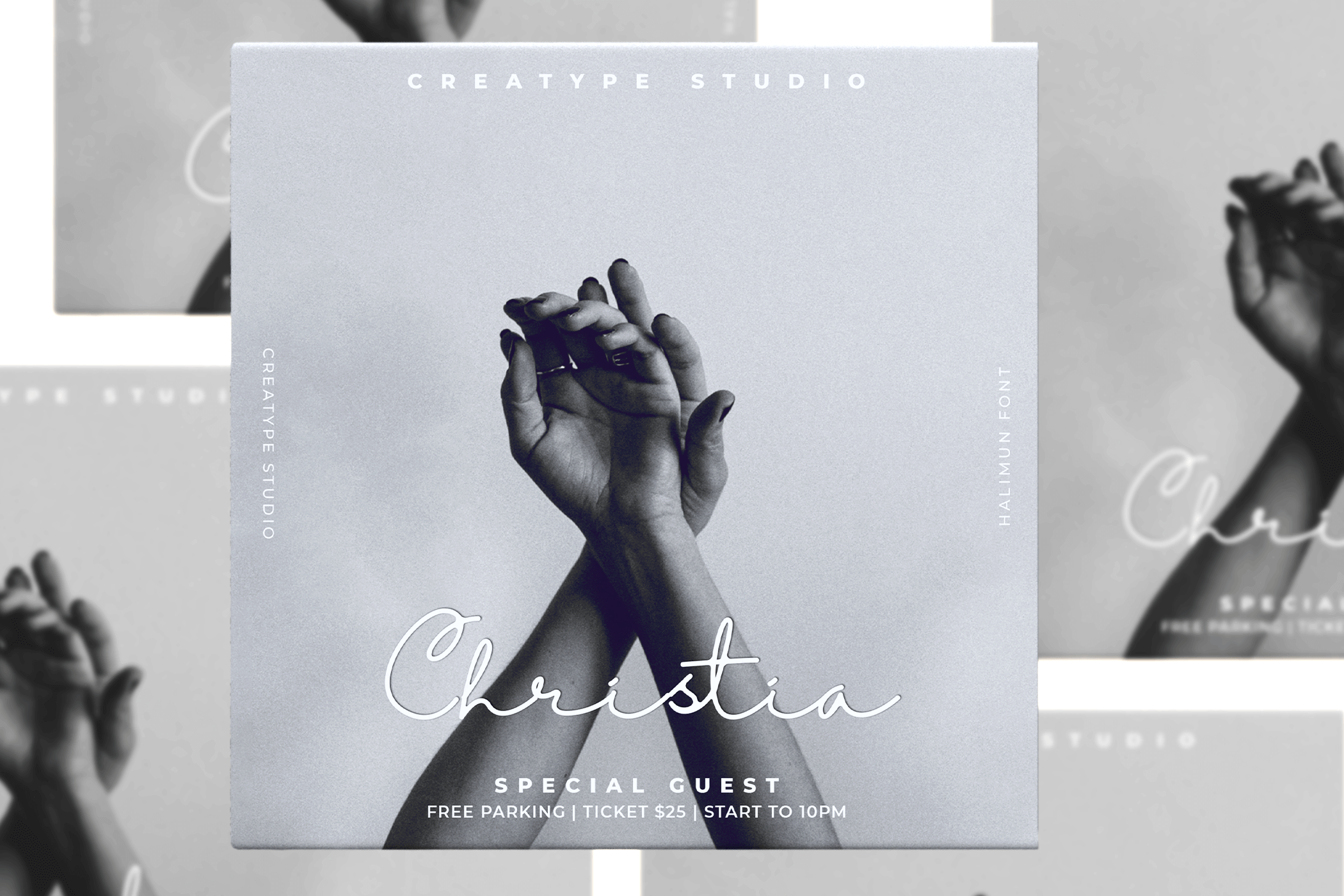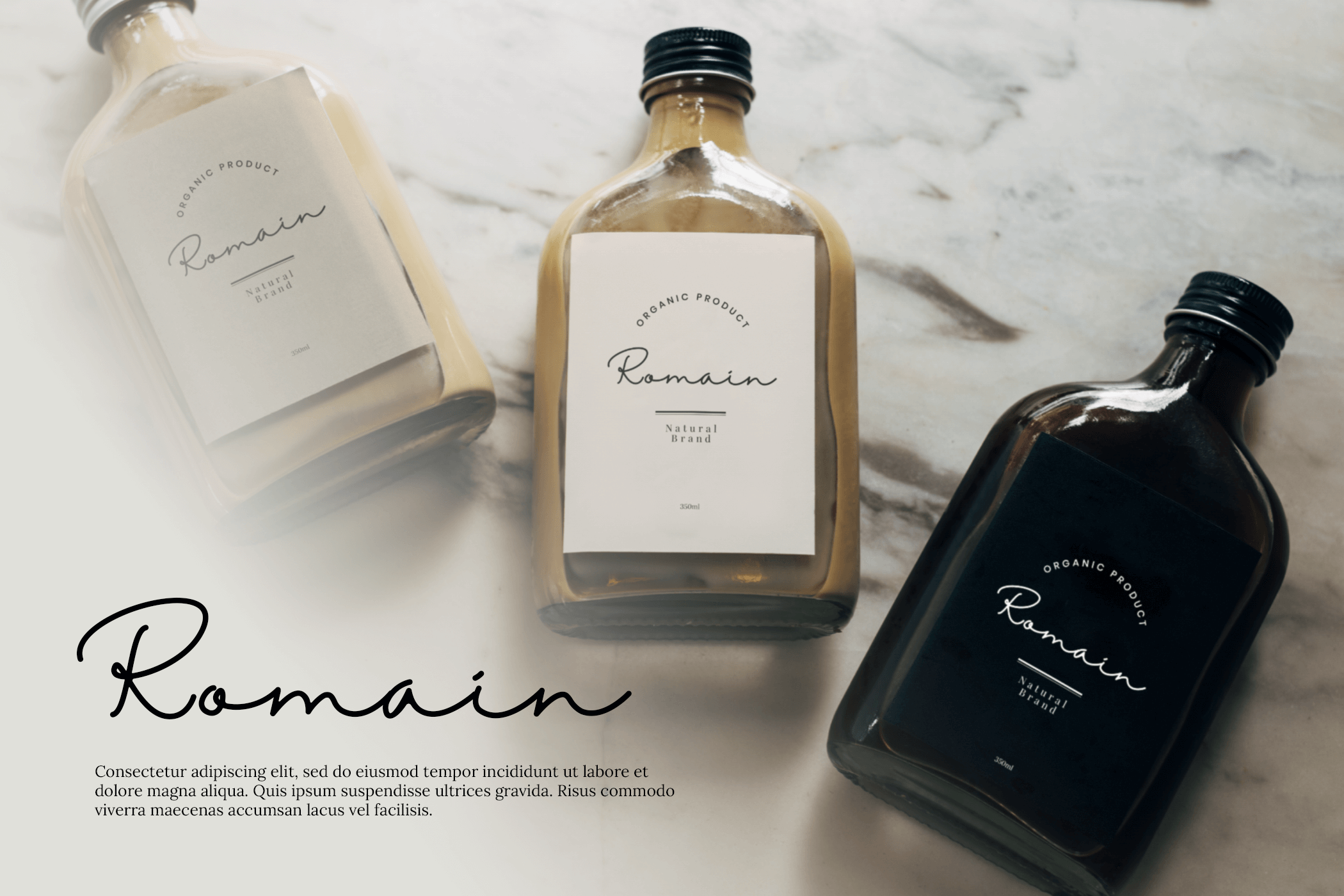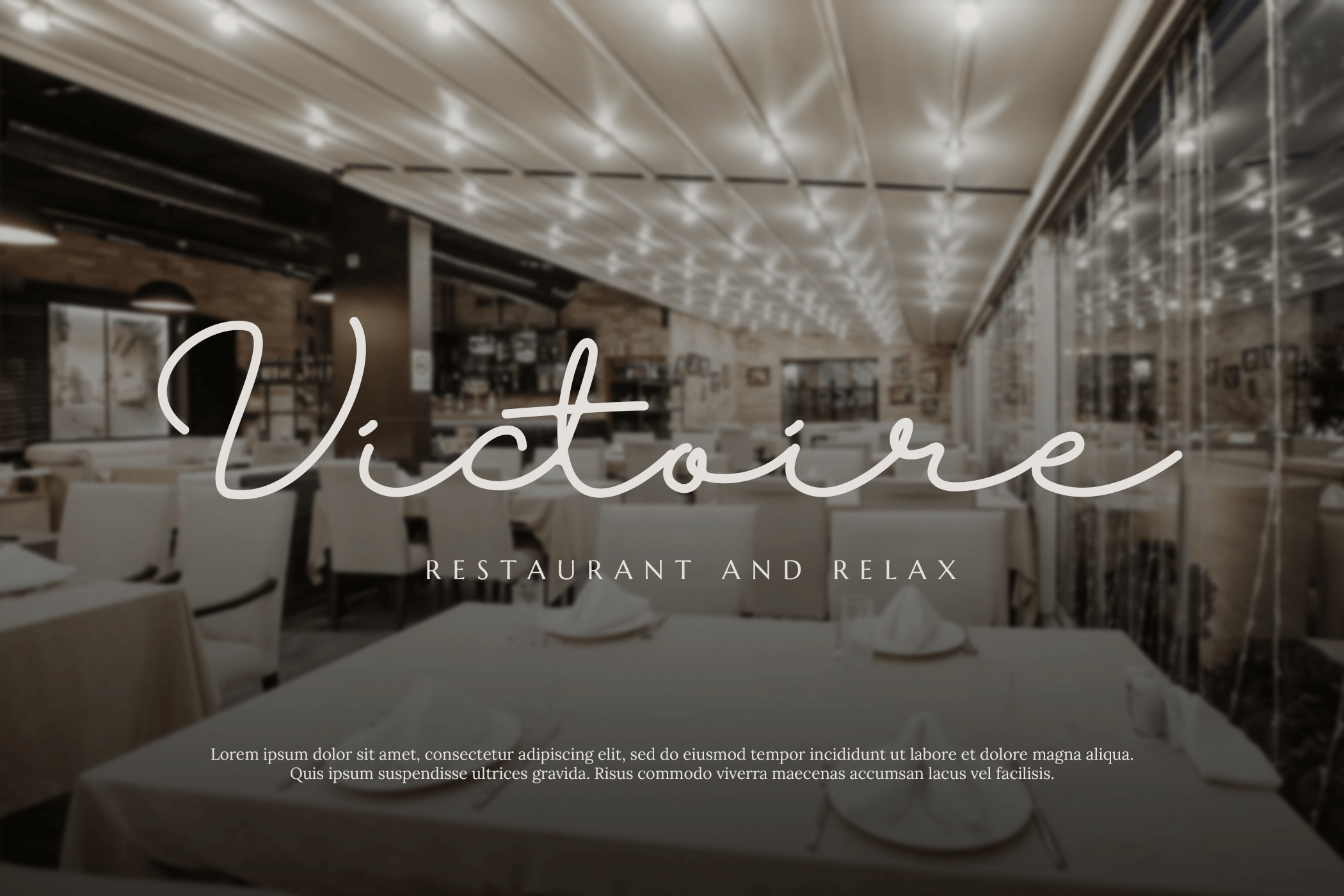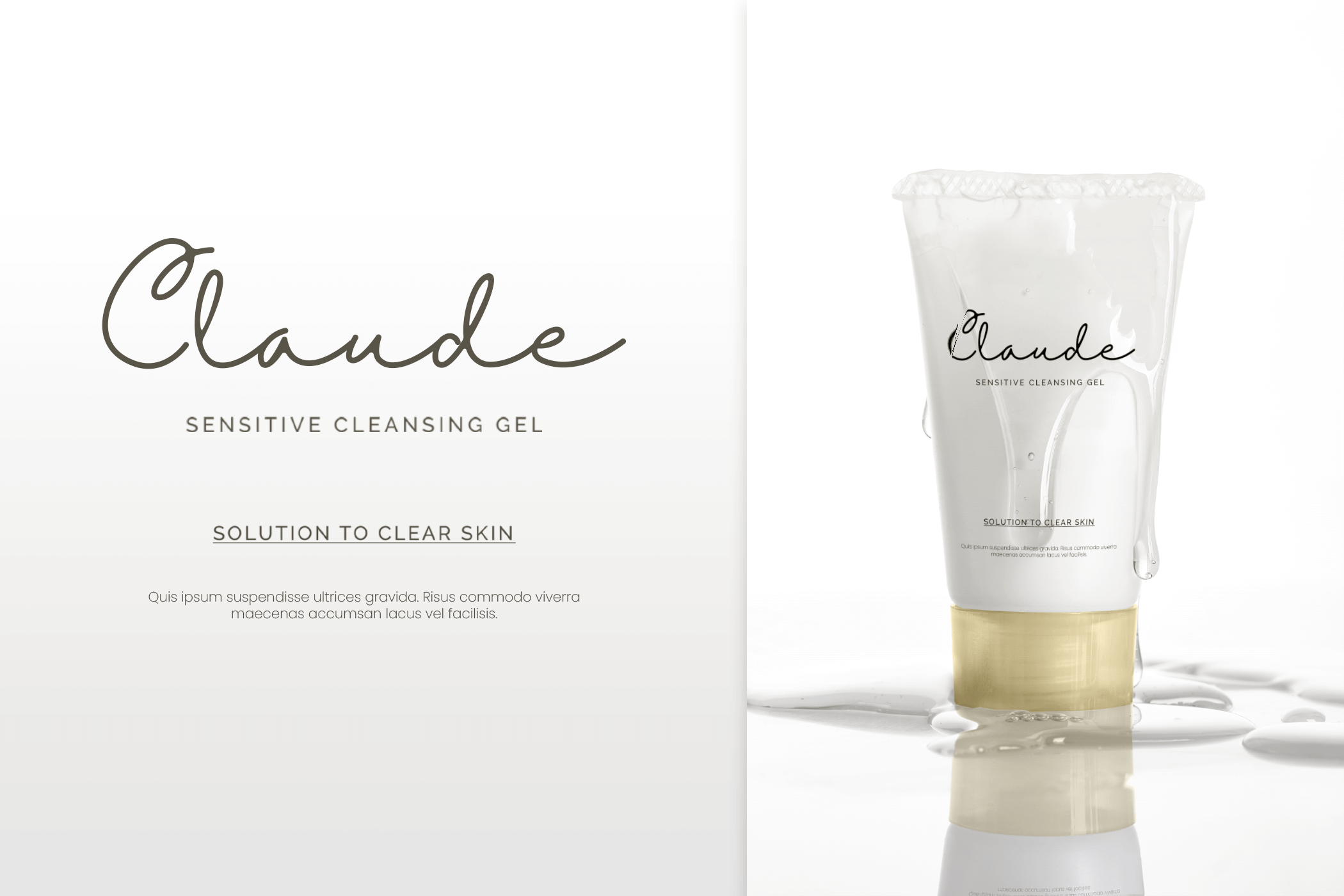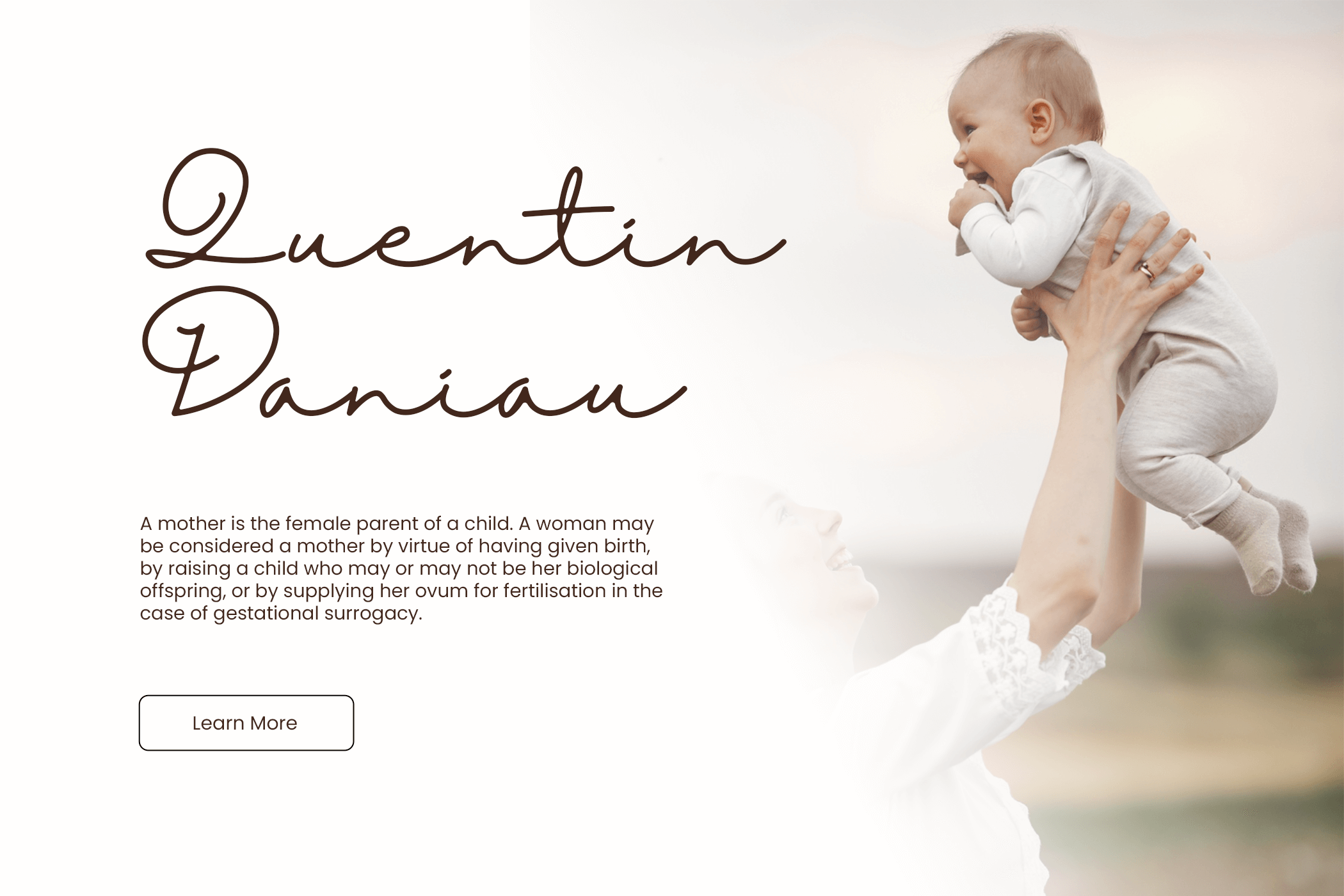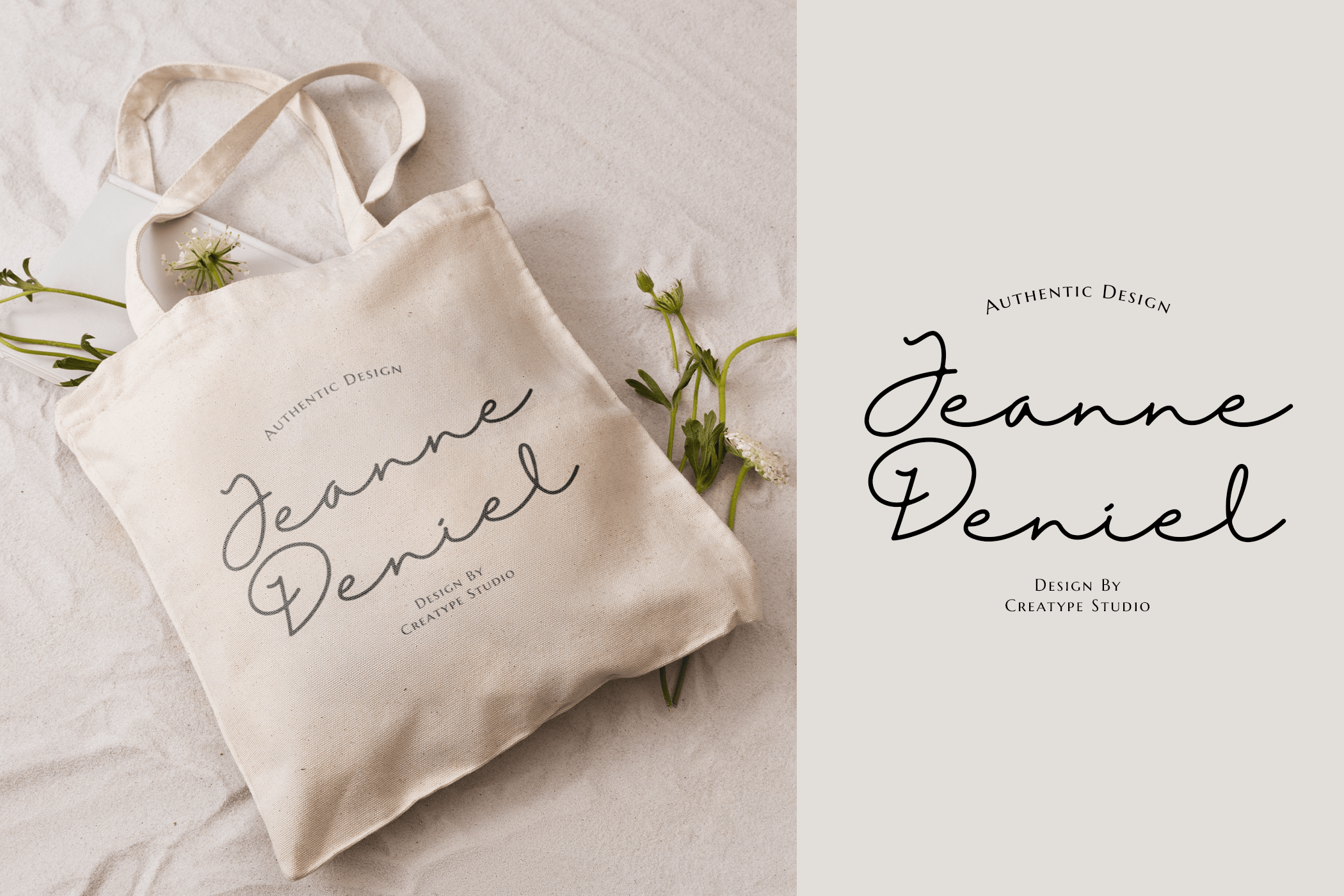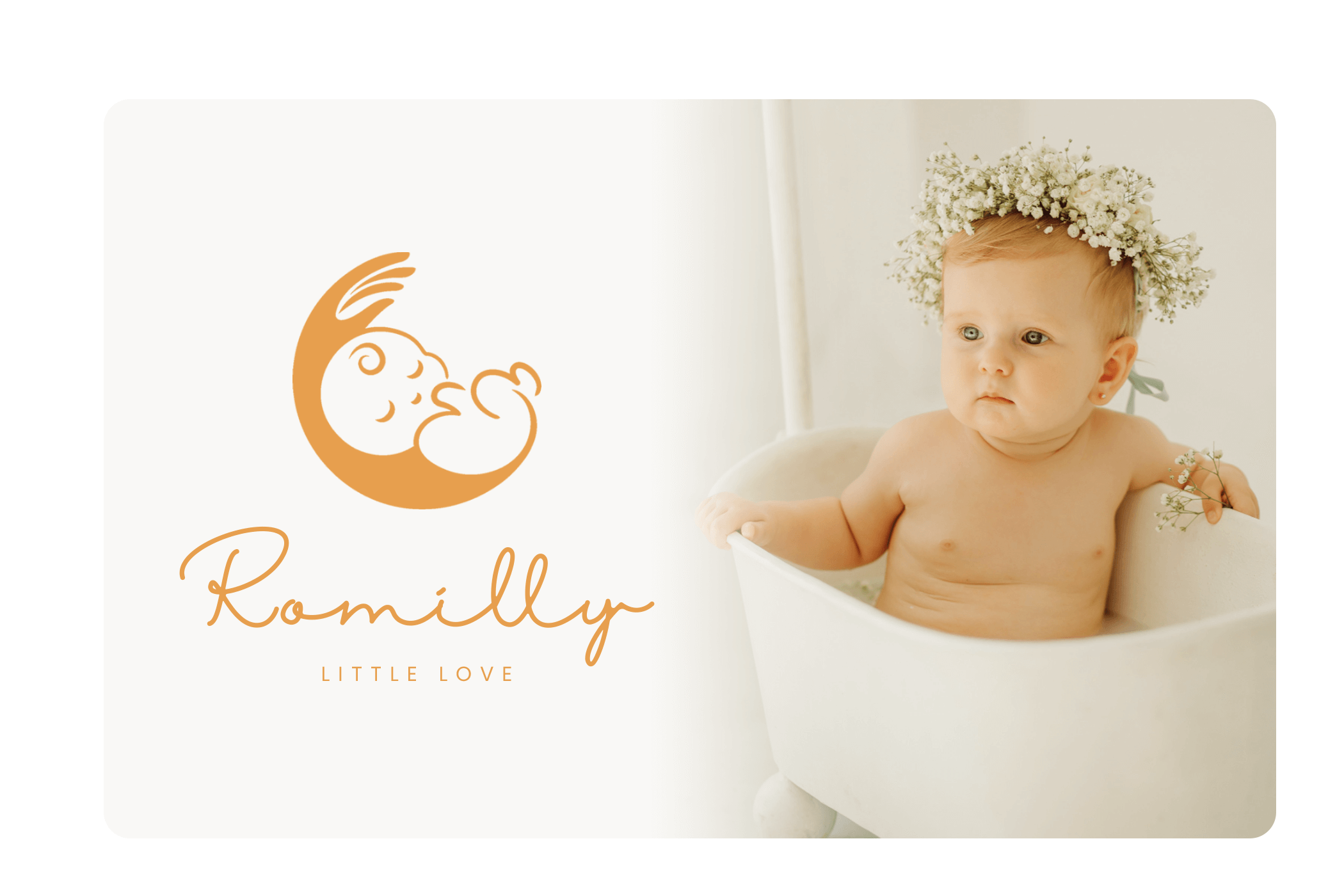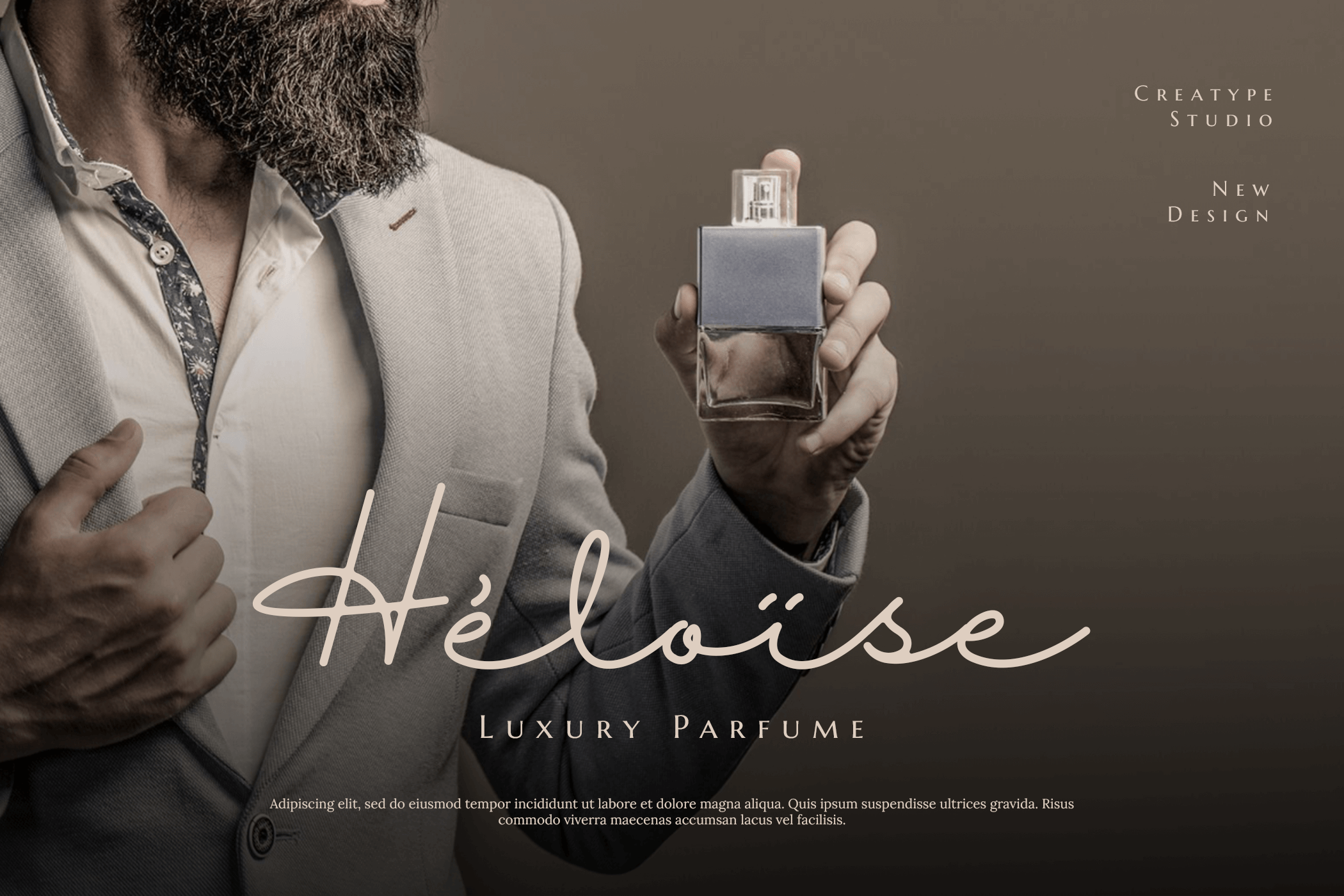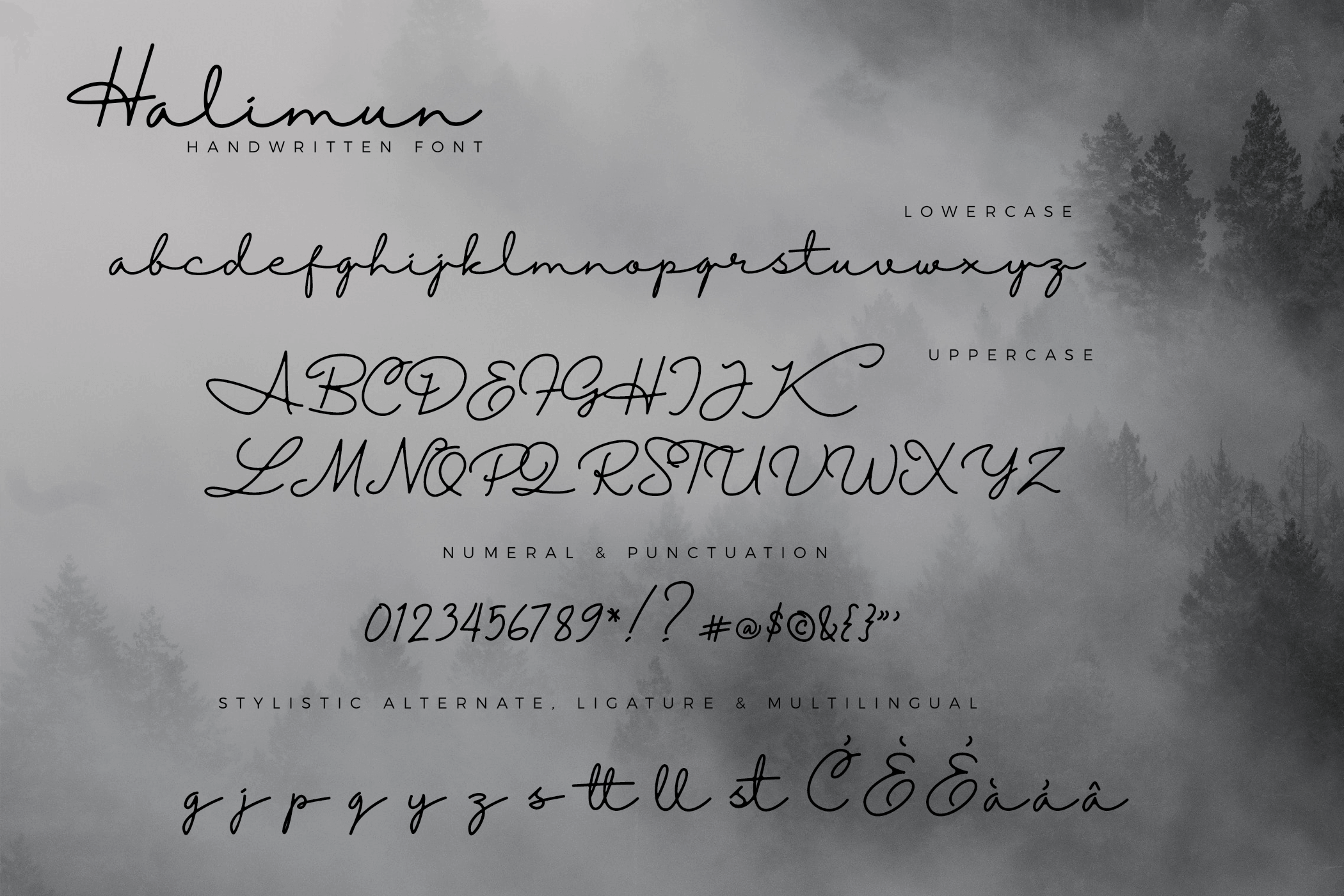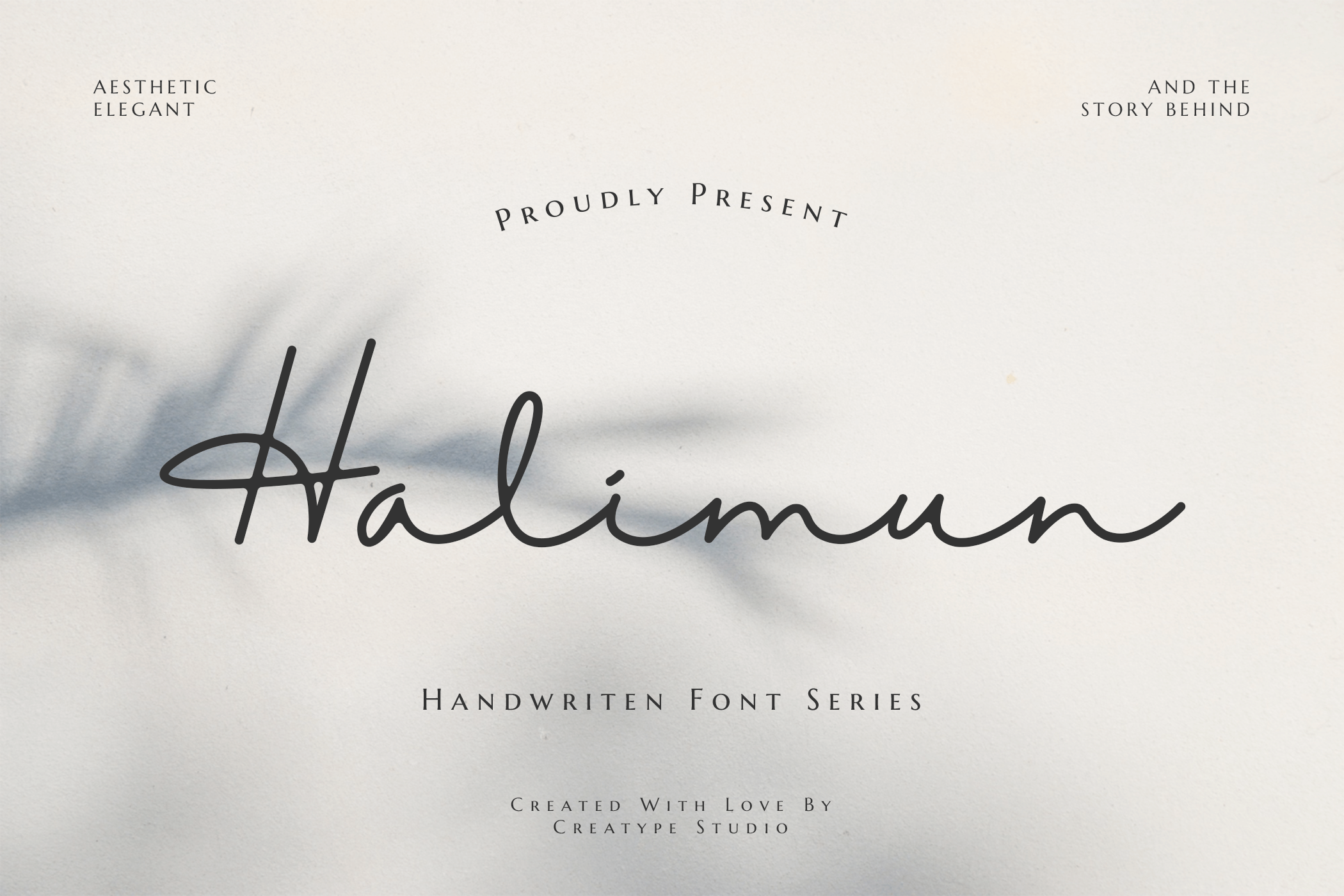
Halimun Script Style – a new modern & fresh script with a handwritten and script style make this font looks elegant, natural, stylish and perfect for any awesome projects that need handwriting taste.
Halimun would perfect for photography, watermark, social media posts, advertisements, logos & branding, invitation, product designs, label, stationery, wedding designs, product packaging, special events or anything that need handwriting taste.
- Ligature & Stylistic alternate
Halimun Script Style